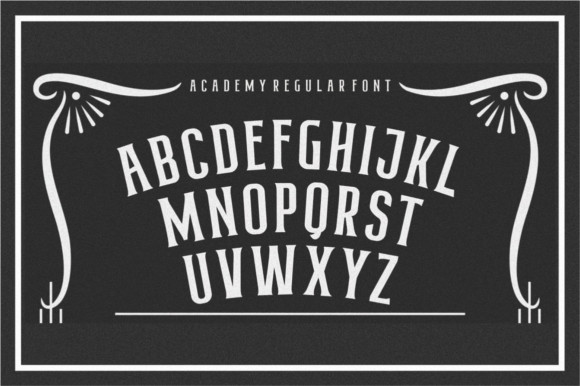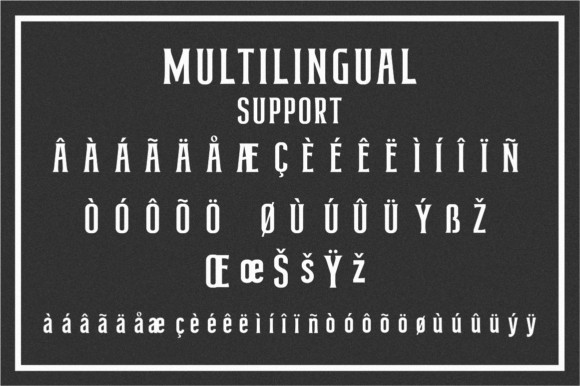
Academy Font
Academy is a simple and modern serif font. Academy will look outstanding in any context, whether it’s being used on busy backgrounds or as a standalone headline!